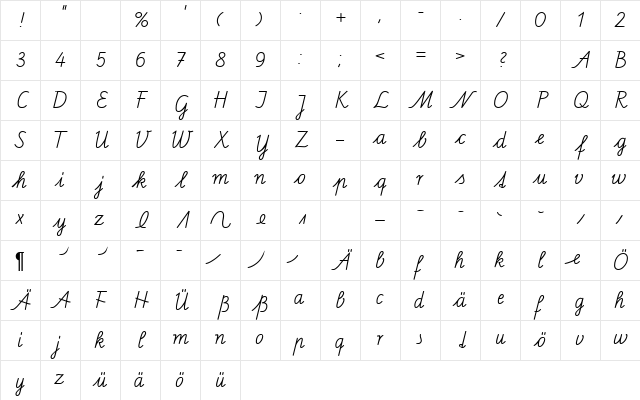
SAS Normal Free Font
SAS Normal
Design Context for SAS
SAS is a composed and adaptable typeface that performs quietly and consistently across a wide range of design contexts.